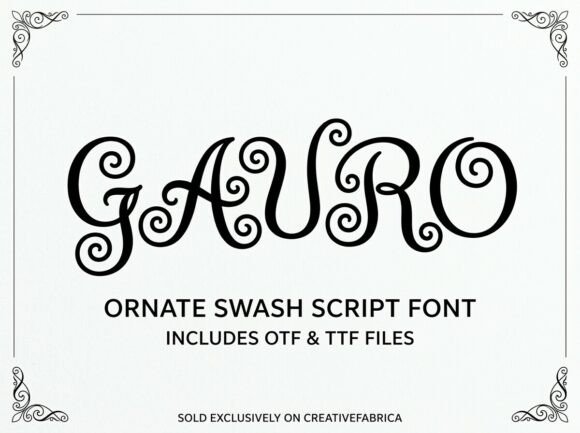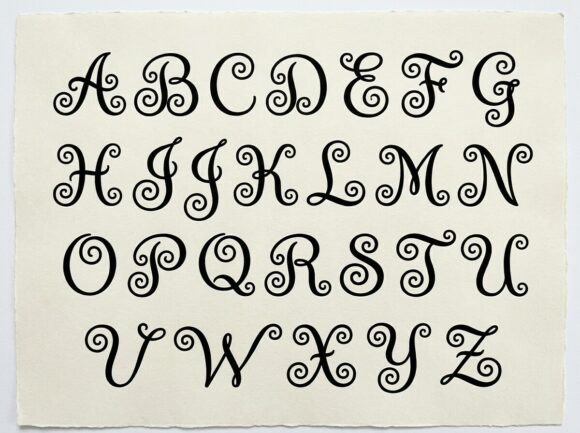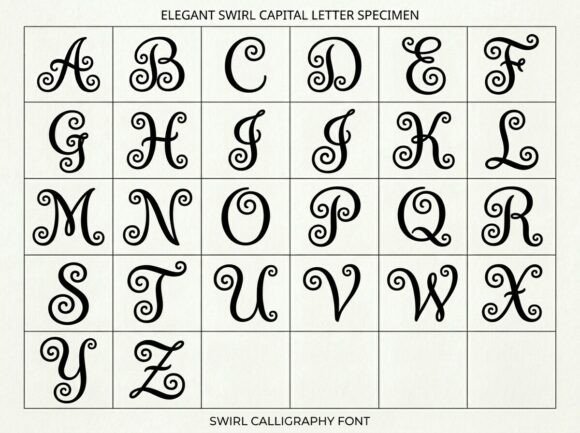
Command Royal Attention with Gauro: The Ornate Swash Script Font
In the world of typography, few fonts command attention and evoke a sense of luxury and sophistication like Gauro. This ornate swash script font is built for exquisite detail, featuring high-contrast letterforms adorned with dramatic, sweeping swashes and intricate, curling flourishes. The result is a majestic typeface that mimics the movement of traditional ink-and-pen craftsmanship, delivering a sense of ancient power and refined, historical charm to your visual communication.
The Art of Gauro: A Study in Elegance and Sophistication
Gauro’s design is rooted in the art of traditional calligraphy, where the rhythmic flow of ink on paper creates a sense of movement and fluidity. The font’s high-contrast letterforms are carefully crafted to showcase a dramatic contrast between thick and thin strokes, creating a sense of tension and elegance. The sweeping swashes and intricate flourishes that adorn each letterform add an extra layer of sophistication, making Gauro an exceptional choice for luxury spirit labels, historical book covers, boutique apothecary branding, and bespoke event stationery.
The Characteristics of Gauro: A Closer Look
So, what sets Gauro apart from other script fonts? Here are a few key characteristics that make this font truly unique:
- High-contrast letterforms: Gauro’s letterforms feature a dramatic contrast between thick and thin strokes, creating a sense of tension and elegance.
- Dramatic swashes: The sweeping swashes that adorn each letterform add a touch of drama and sophistication, making Gauro perfect for headlines and titles.
- Intricate flourishes: The intricate, curling flourishes that mimic the movement of traditional ink-and-pen craftsmanship add an extra layer of elegance and refinement.
- Rhythmic flow: Gauro’s design creates a sense of movement and fluidity, making it perfect for creating a sense of continuity and flow in your visual communication.
Using Gauro in Your Design Projects
Gauro is an incredibly versatile font that can be used in a variety of design projects. Here are a few ideas to get you started:
- Luxury spirit labels: Gauro’s elegant, sophisticated design makes it perfect for luxury spirit labels, adding a touch of refinement and luxury to your branding.
- Historical book covers: The font’s traditional, calligraphic feel makes it an excellent choice for historical book covers, evoking a sense of nostalgia and classic elegance.
- Boutique apothecary branding: Gauro’s intricate, detailed design makes it perfect for boutique apothecary branding, adding a touch of sophistication and elegance to your packaging and marketing materials.
- Bespoke event stationery: The font’s luxurious, refined design makes it an excellent choice for bespoke event stationery, adding a touch of elegance and sophistication to your wedding invitations, menus, and other event materials.
In conclusion, Gauro is a truly exceptional font that commands royal attention with its ornate swash script design. Its high-contrast letterforms, dramatic swashes, and intricate flourishes make it an excellent choice for luxury branding, historical book covers, boutique apothecary branding, and bespoke event stationery. With its rhythmic flow and sophisticated architectural balance, Gauro delivers a sense of ancient power and refined, historical charm to your visual communication, ensuring your headlines stand out with a legendary and unforgettable personality.
Whether you’re a designer, craft, or simply someone who appreciates the art of typography, Gauro is a font that is sure to inspire and delight. So why settle for ordinary, when you can command royal attention with Gauro?